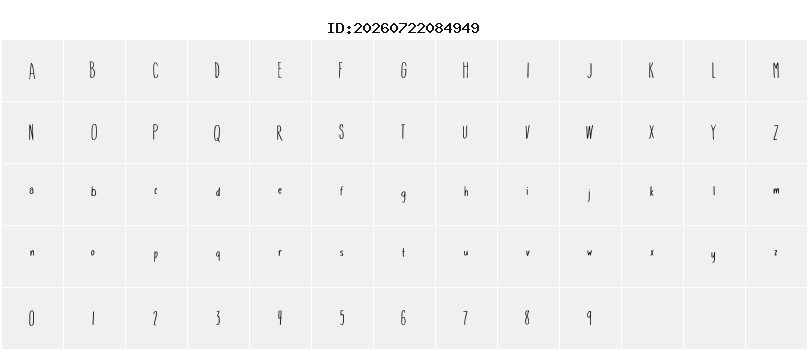
• Font Name: Hillside Vista
• Designer: =^_^=
About Hillside Vista.otf
Hillside Vista.otf is a modern, elegant sans-serif font designed for ultimate readability and visual harmony. Perfect for branding, headlines, web design, and print materials.